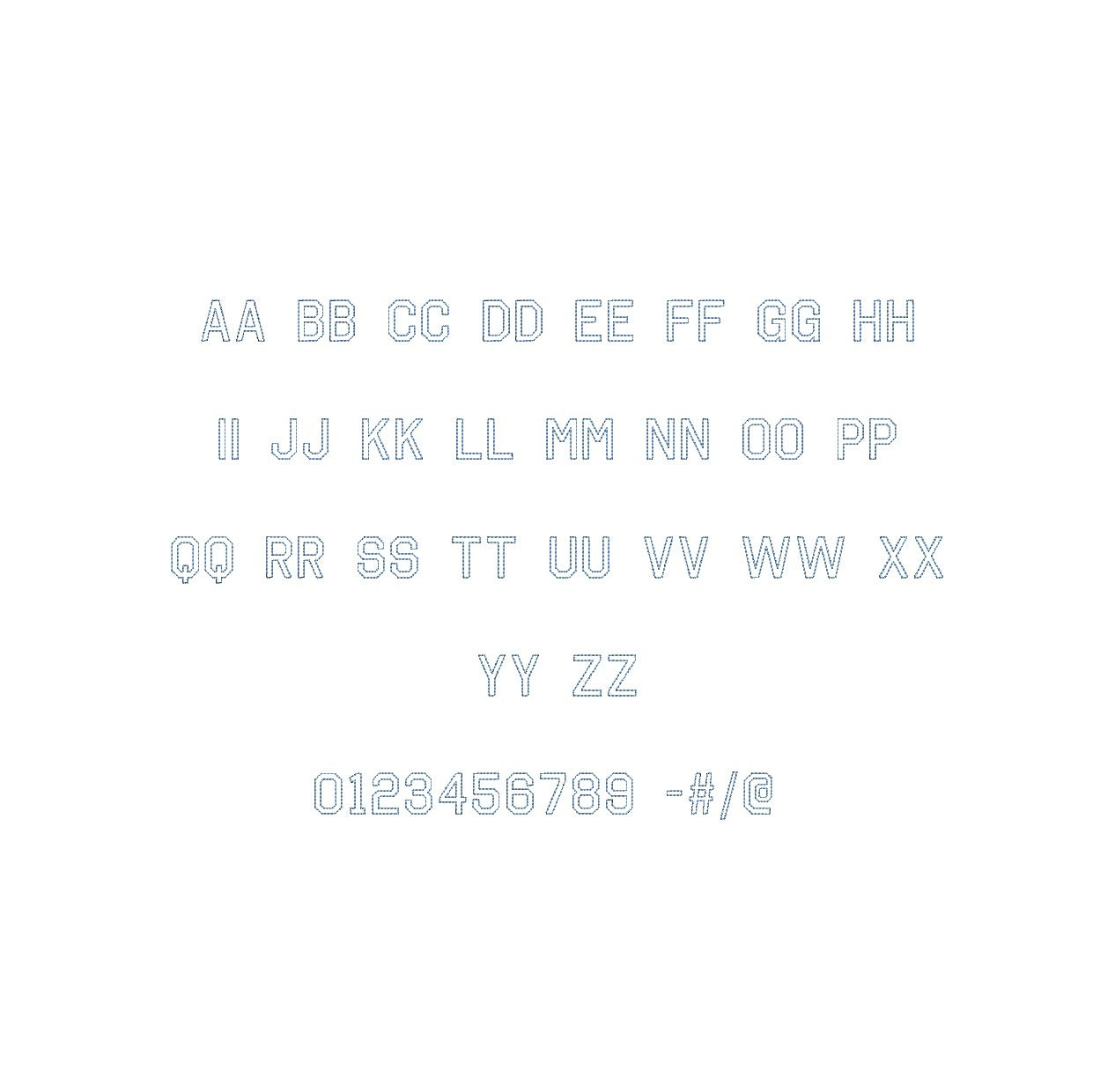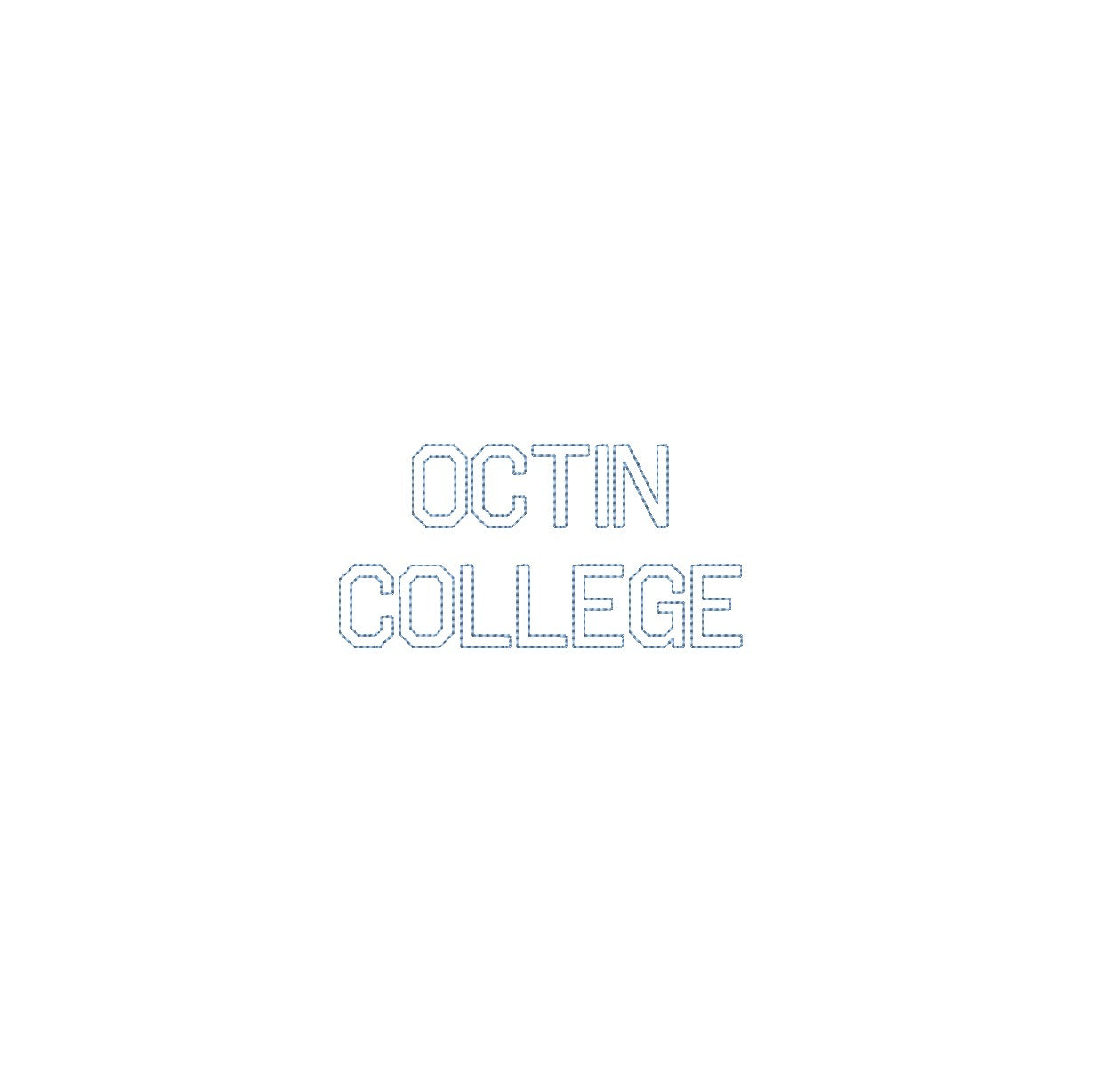
Elevate your embroidery with the Octin College Bean Outline ESA font. Designed for Wilcom Studio e4.5.6 and Hatch 3 versions and up, this font seamlessly blends academic charm and precision. Infuse your designs with a unique aesthetic, perfect for monograms and embellishments. Experience seamless compatibility for exceptional results. Unleash a new level of stitching finesse with the Octin College Bean Outline ESA font – your key to captivating designs that radiate scholarly style. Transform your creations into embroidery masterpieces that showcase your intelligence and creativity. Elevate your projects with the Octin College Bean Outline ESA font and make your embroidery truly distinguished.